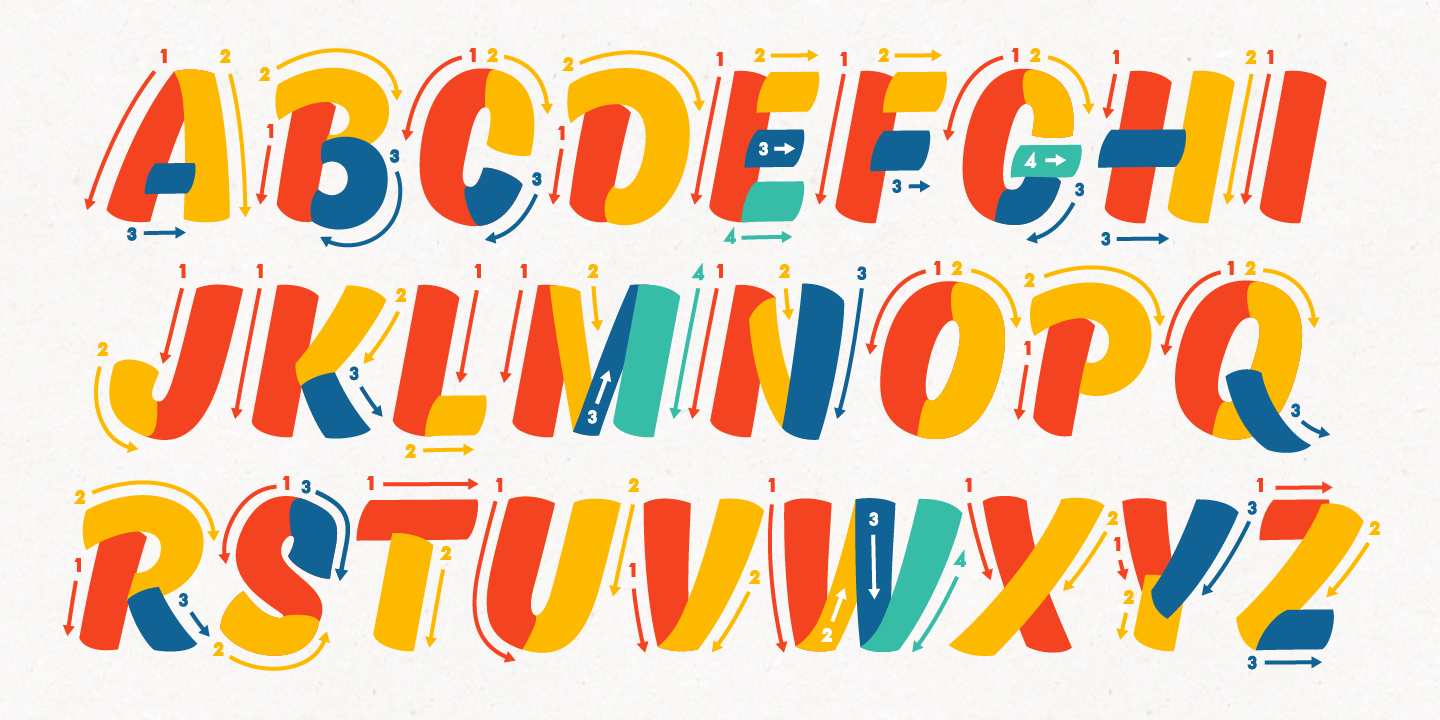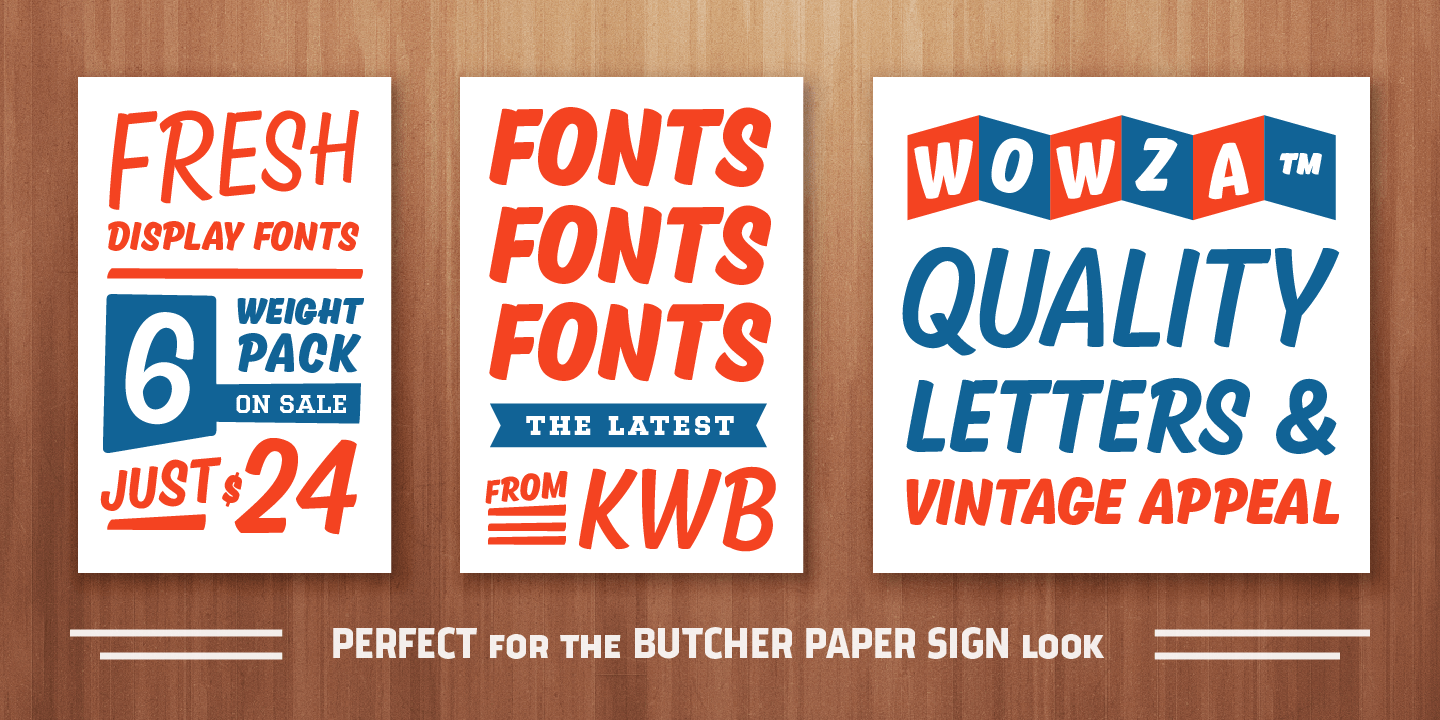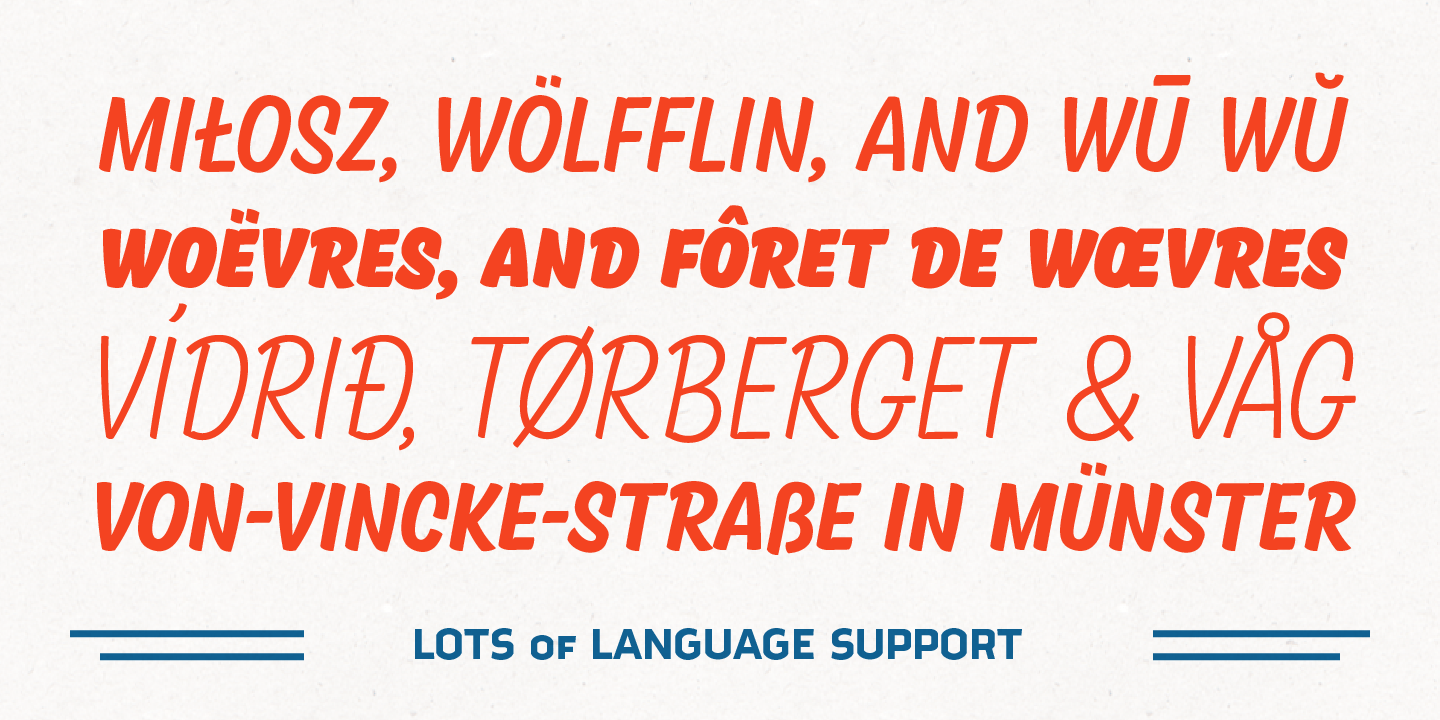
About Kansas Casual
Kansas Casual offers a more upright, gothic, and modern alternative to the conventional sign painter\’s one stroke. Kansas provides a completely unique take on a overdone classic with proportions and crossbar heights inspired by the more friendly Chicago…